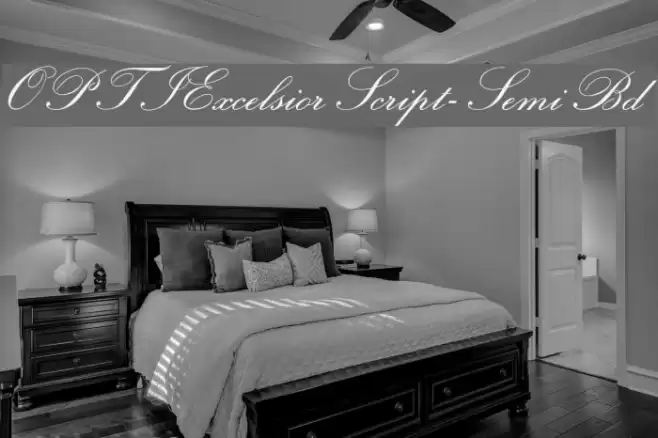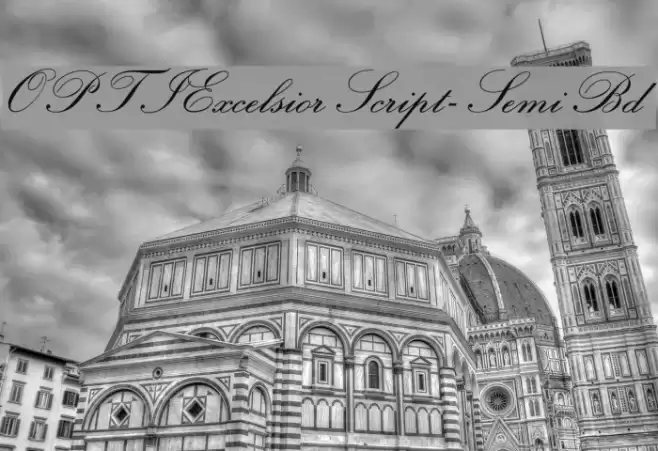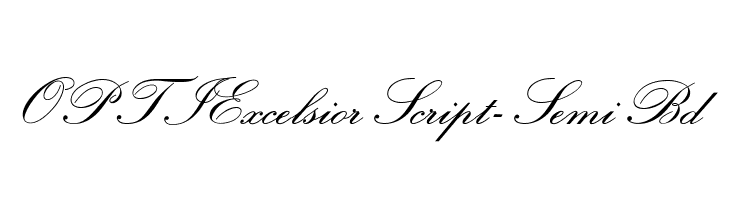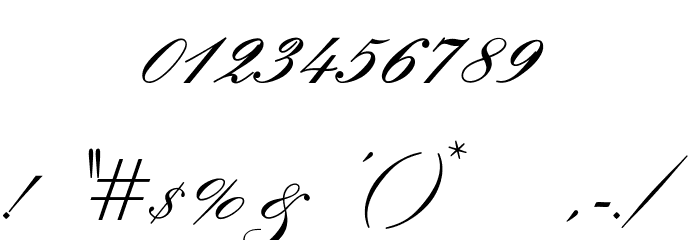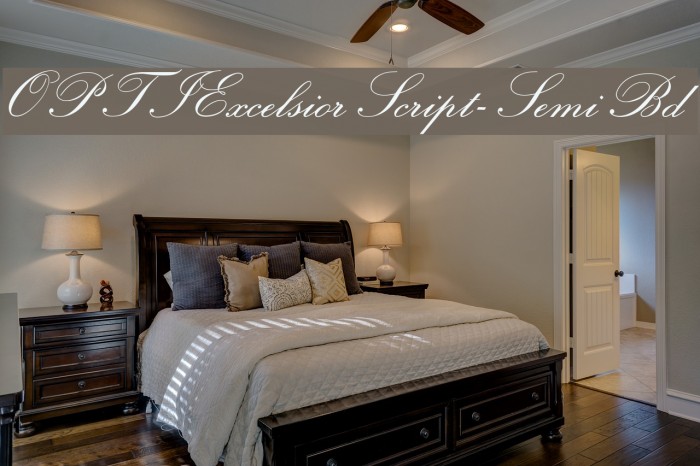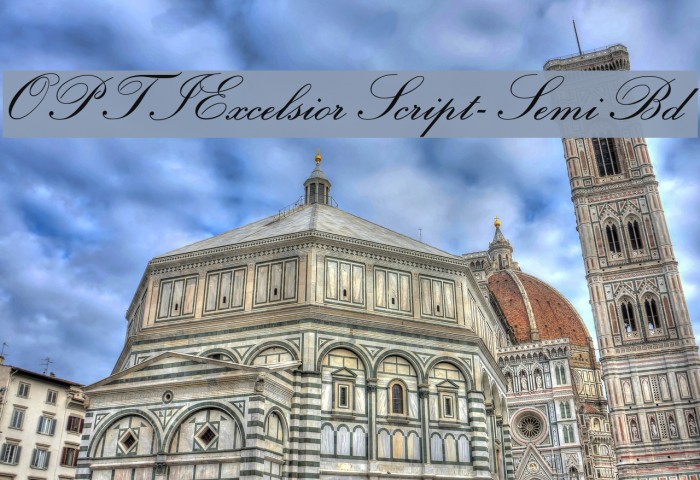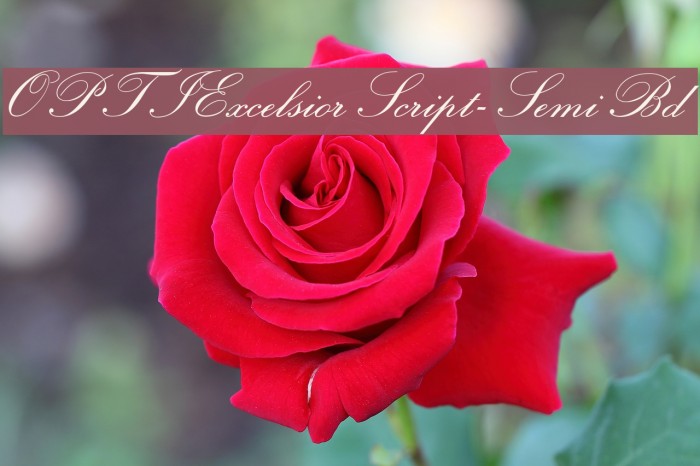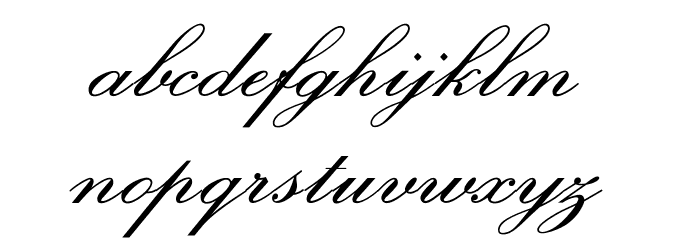
OPTIExcelsiorScript-SemiBd Font
OPTIExcelsiorScript-SemiBd Description
This elegant script font features flowing, cursive letterforms with a sophisticated flair. The uppercase letters are adorned with intricate loops and swashes, giving them a decorative and ornate appearance. The lowercase letters maintain a consistent slant, enhancing the fluidity and grace of the script. The numerals are styled to match the elegance of the alphabet, with slight embellishments that add to the overall aesthetic. Special characters are thoughtfully designed to complement the script, ensuring a cohesive look across all text. This font exudes a sense of luxury and refinement, making it ideal for formal and upscale design projects.
An elegant and ornate script font with flowing, cursive letterforms from Uncategorized fonts.
- Proposed Projects: Wedding invitations, luxury branding, elegant stationery, formal event programs.
- Overall Style: Elegant, Ornate
- Use Case: Logos, Invitations, Branding